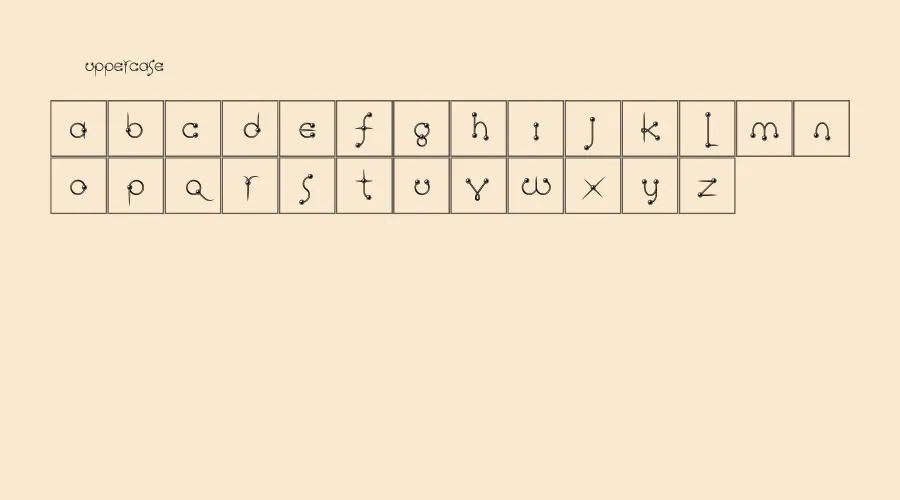
About Ringpin Font
Ringpin Font is designed by Harold Lohner it is a fancy text style. It has several unique qualities that make it appropriate for a variety of uses. The font is ideal for a variety of unique projects. This typeface has a distinctive textual style, so the letter works well for creating university projects.
With such typography, users could really generate delightful and remarkable layouts. The font is flawless for any design that demands a versatile impression.